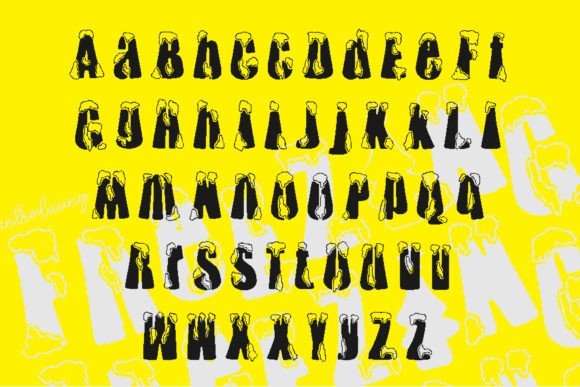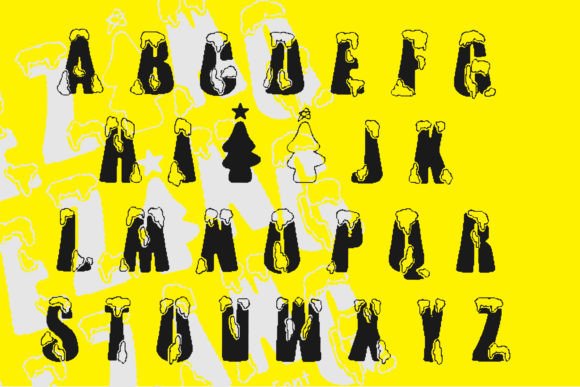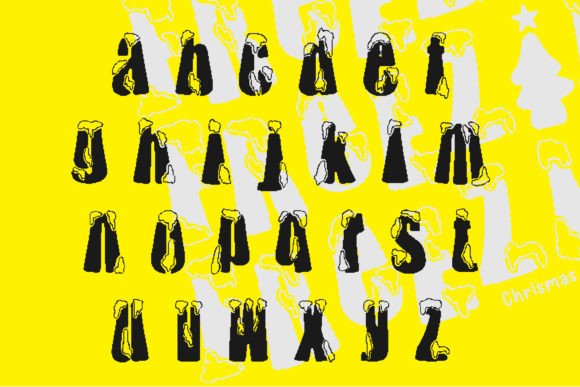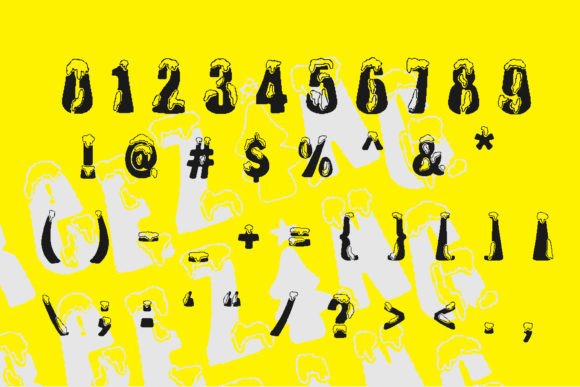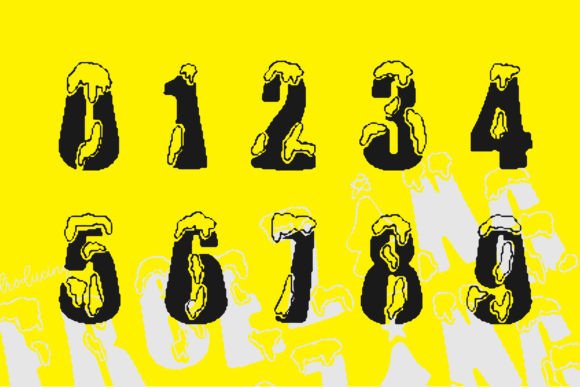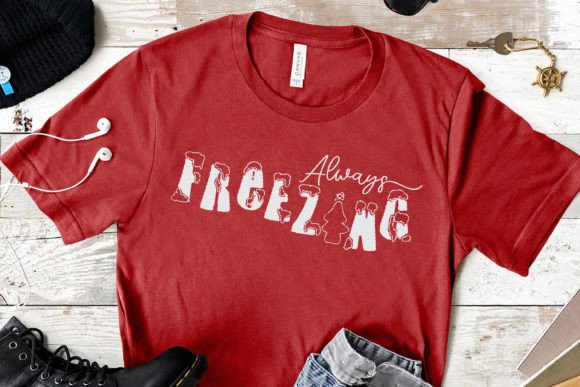
Introducing Freezing Font: A Fun, Retro, and Unique Decorative Font
Are you tired of using the same old fonts in your designs? Look no further! Freezing Font is a fresh and exciting addition to the world of typography. This fun, retro, and incredibly unique decorative font is perfect for designers and crafters looking to add a touch of personality to their work. With its versatility and wide range of applications, Freezing Font is sure to become a favorite in your font collection.
What is Freezing Font?
Freezing Font is a decorative font that boasts a distinctive, retro aesthetic. Its unique design makes it stand out from more traditional fonts, adding a touch of whimsy and playfulness to any project. Whether you’re working on a logo, a poster, a craft project, or a digital design, Freezing Font is sure to make your work pop.
Key Features of Freezing Font
- Unique Design: Freezing Font features a one-of-a-kind design that is sure to grab attention. Its retro vibe is perfect for projects that require a touch of nostalgia or a dash of fun.
- Versatility: This font is incredibly versatile, making it suitable for a wide spectrum of applications. From logos and posters to craft projects and digital designs, Freezing Font can be used in virtually any project.
- High-Quality: This font is designed with high-quality in mind, ensuring that it looks great in any size or application.
Applications of Freezing Font
One of the best things about Freezing Font is its versatility. This font can be used in a wide range of applications, including:
- Logo Design: Add a touch of personality to your logo with Freezing Font. Its unique design makes it perfect for businesses that want to stand out.
- Poster Design: Create eye-catching posters with Freezing Font. Its retro vibe is perfect for promoting events, products, or services.
- Craft Projects: Add a personal touch to your craft projects with Freezing Font. This font is perfect for handmade cards, scrapbooking, and other paper crafts.
- Digital Design: Use Freezing Font in your digital designs, such as social media graphics, blog posts, and website headers.
Tips for Using Freezing Font
Here are a few tips for getting the most out of Freezing Font:
- Experiment with Sizes: Freezing Font looks great in a variety of sizes. Experiment with different sizes to find the one that works best for your project.
- Pair with Other Fonts: Freezing Font pairs well with a variety of other fonts. Try pairing it with a sans-serif font for a fun and modern look.
- Use in Combination with Images: Freezing Font looks great in combination with images. Try using it to add text to a photo or illustration.
Freezing Font is a fun, retro, and incredibly unique decorative font that is perfect for designers and crafters looking to add a touch of personality to their work. Its versatility and wide range of applications make it a great addition to any font collection. Whether you’re working on a logo, poster, craft project, or digital design, Freezing Font is sure to make your work stand out.